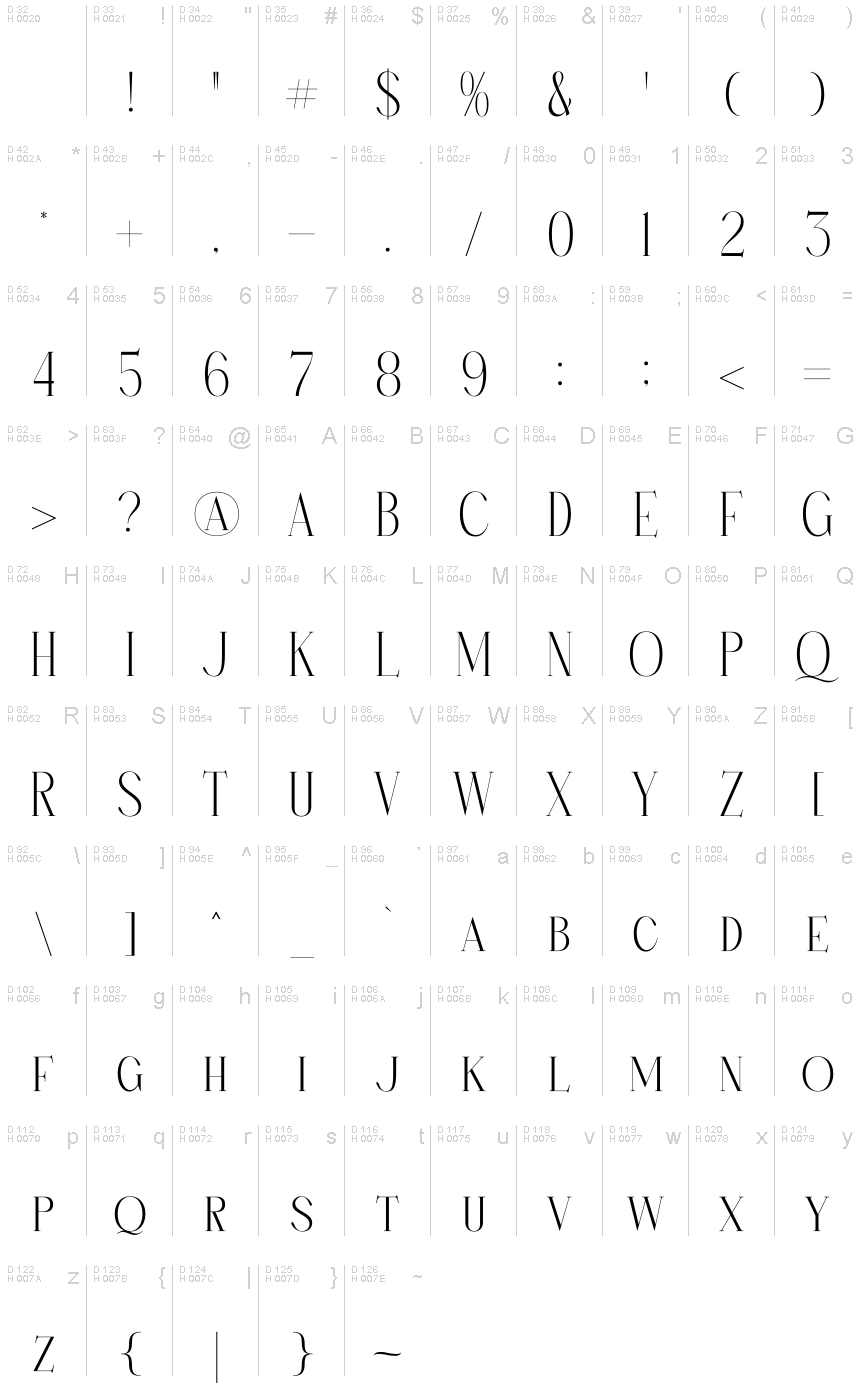
Hanchern
Hanchern font designed by Storytype Studio captures a gorgeous blend of both modern high contrast look and condensed streamlined style. Hanchern has elegant refined details which will shine on designs such as titles, magazines, wedding invitations, posters and many more. Explore the unique variety of options offered by this superb serif typeface.
Hanchern is suitable for styles such as elegant, vintage and classic designs. It’s recommended to use it for big text sizes due to the stroke contrast that will give an eye-catching charm. Even though thin strokes are delicate looking they carry an exquisite character refinement.